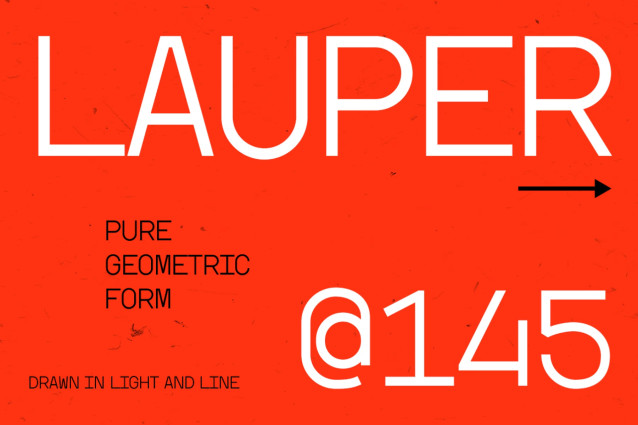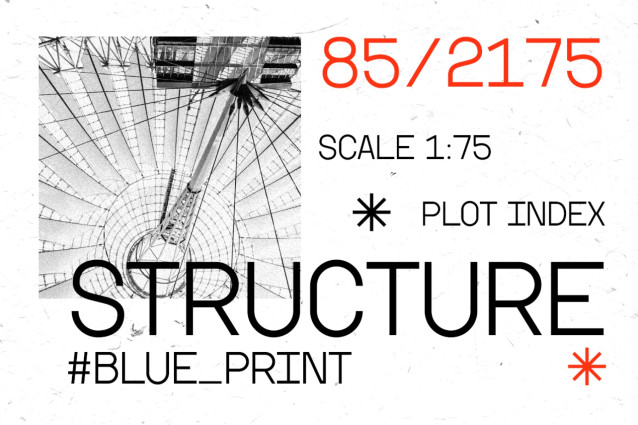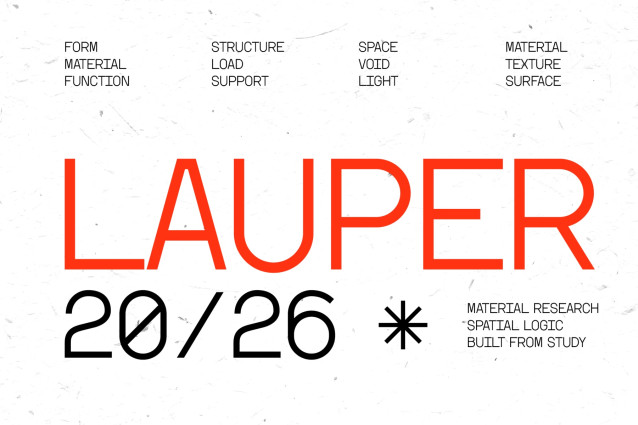
Lauper – Modern Geometric Font
Modern Font Lauper brings a sleek geometric aesthetic with clean lines, sharp details, and a refined editorial feel. At the same time, its minimalist letterforms create a futuristic and sophisticated appearance. Additionally, the balanced proportions keep every character clear, stylish, and easy to use. As a result, Lauper gives your typography a strong visual presence without making your layout feel crowded. Whether you are designing bold headlines, elegant titles, or modern compositions, this font adds a structured and effortlessly cool personality.
First of all, Lauper combines geometric shapes with a clean contemporary style. Because of this, it feels modern while remaining highly versatile. Furthermore, its distinctive letterforms make it suitable for branding, logos, posters, editorial design, magazines, fashion campaigns, architecture projects, technology branding, packaging, and social media graphics. For this reason, Lauper is a smart choice for designers who want typography that feels fresh, creative, and visually confident.